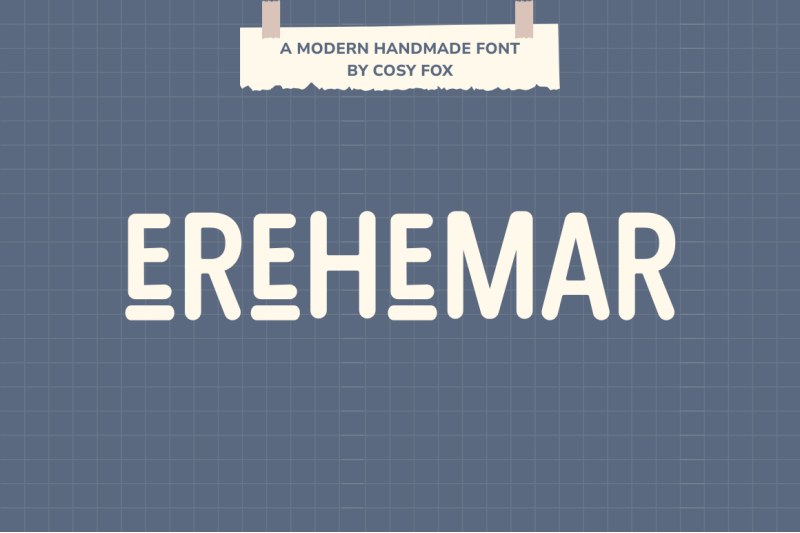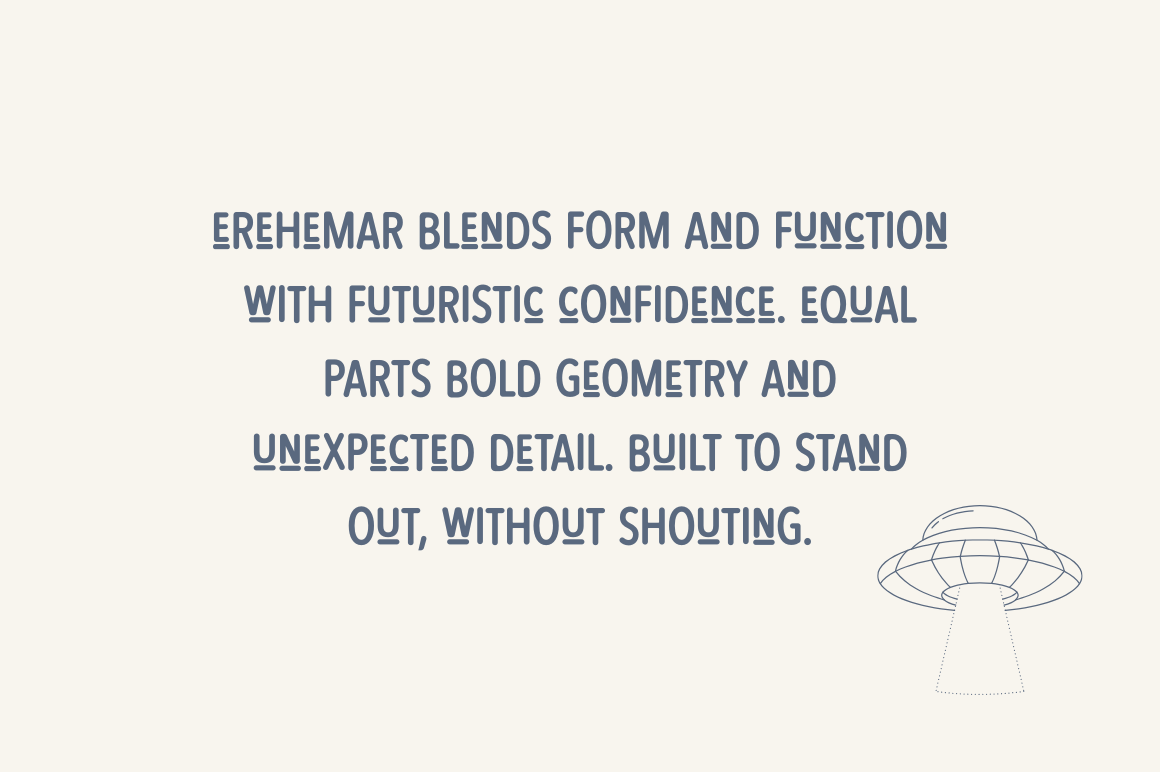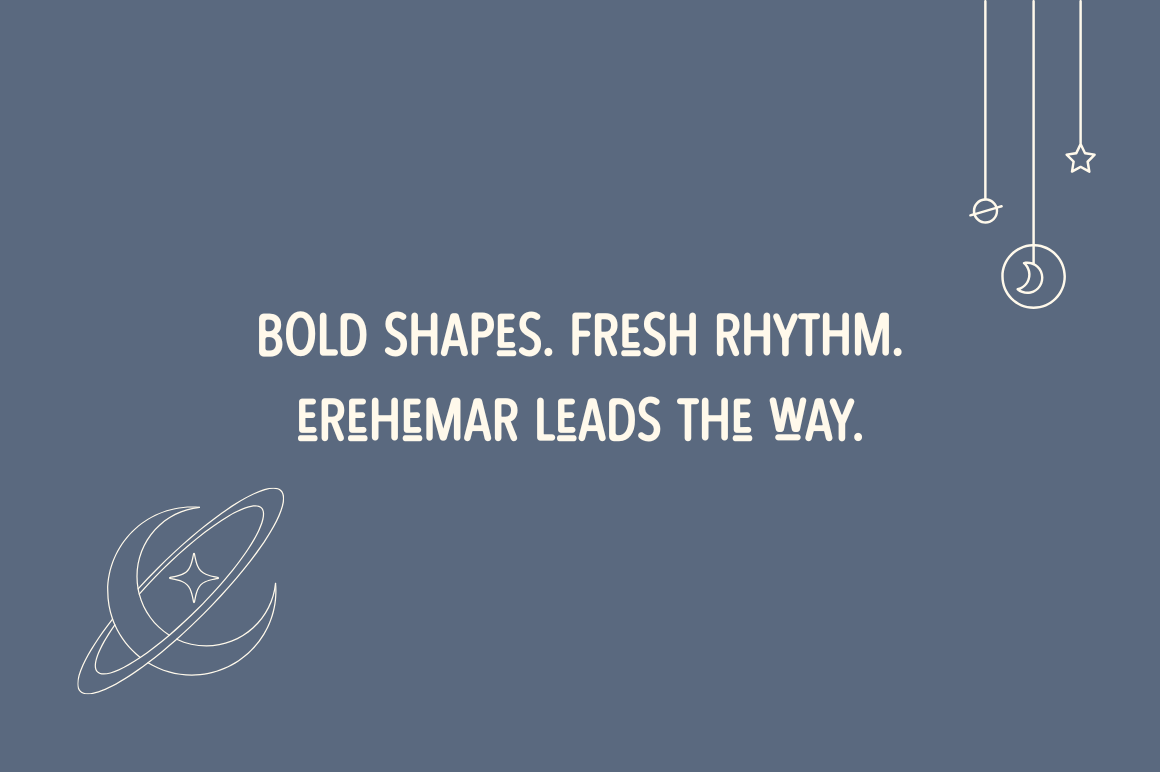
Erehemar Thin Bold Font
Erehemar is a bold, modern display font that plays with form, rhythm, and a touch of retro flair. With geometric lines, rounded corners, and clever cutaways, this all-caps typeface makes a statement wherever it goes. It’s perfect for futuristic branding, standout headlines, digital posters, and projects that want to feel sleek, stylish, and just a little bit different. Clean enough for minimalist design. Bold enough to own the spotlight. Easy to use in Canva, Procreate, and your favourite design tools. Language Support: French, German, Spanish, Italian and Portuguese. What You Ge: Erehemar .OTF font file, How to Install PDF. Thank You! www.cosyfox.co.uk